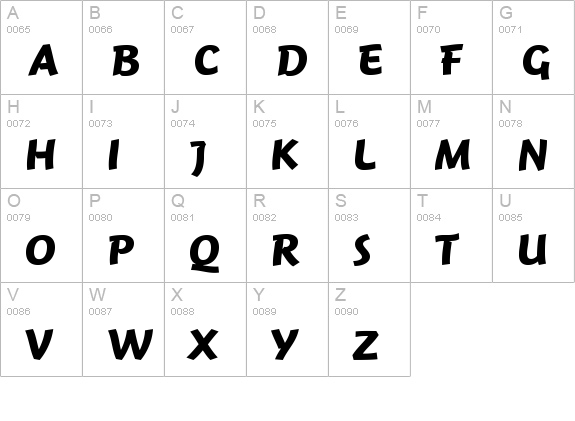
Jambono-Bold is a strong, high-contrast variant in the Jambono typeface family \xE2\x80\x94 well suited to headlines, attention-grabbing titles, and strong calls-to-action.
Jambono-Bold is a modern and versatile font that exudes sophistication and elegance. Its bold and striking letterforms make it perfect for creating attention-grabbing headlines and eye-catching designs. This font effortlessly combines classic and contemporary elements, resulting in a unique and timeless aesthetic. Jambono-Bold is the ideal choice for those seeking a font that embodies both strength and style. Its clean lines and well-defined curves give it a sense of authority, while its subtle detailing adds a touch of refinement. Whether used in print or digital media, this font will undoubtedly make a lasting impression. One of the greatest advantages of Jambono-Bold is that it is available for free download at FontsMarket.com. This means that designers, artists, and creatives of all kinds can easily access and utilize this exceptional font without any cost. The availability of this font for free further enhances its appeal and accessibility, making it a valuable asset for individuals and businesses alike. With Jambono-Bold, the possibilities are endless. From branding and logo design to website headers and social media graphics, this font will elevate any project to new heights. Its versatility allows it to be used across various industries, from fashion and beauty to technology and beyond. Download Jambono-Bold for free at FontsMarket.com and unlock the potential of this remarkable font. Let it inspire your creativity and help you create stunning designs that leave a lasting impression. Embrace the power of Jambono-Bold and elevate your typography game to new levels of excellence.